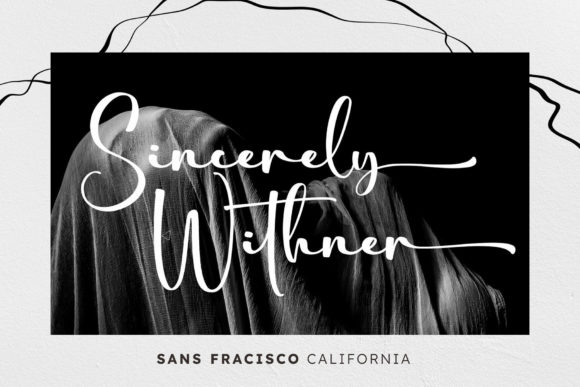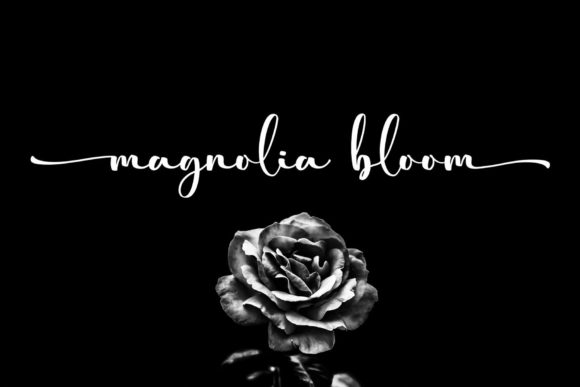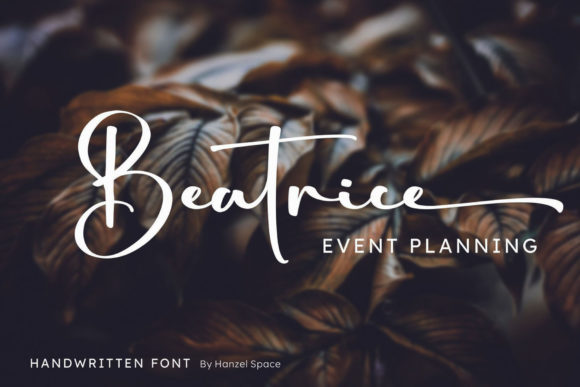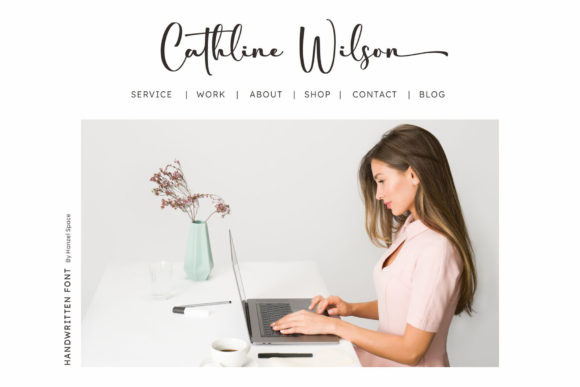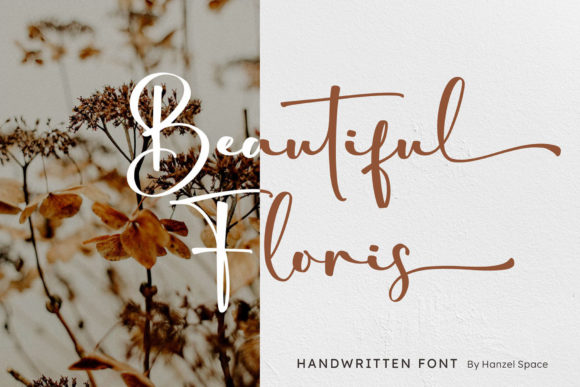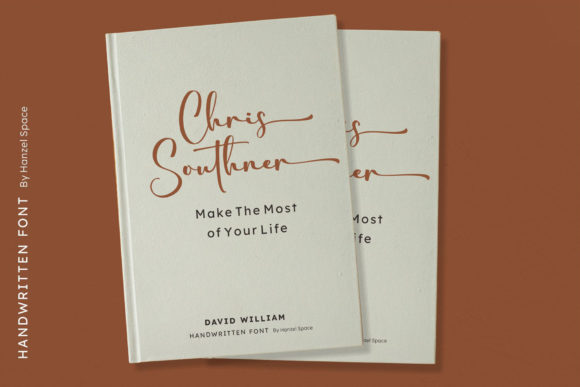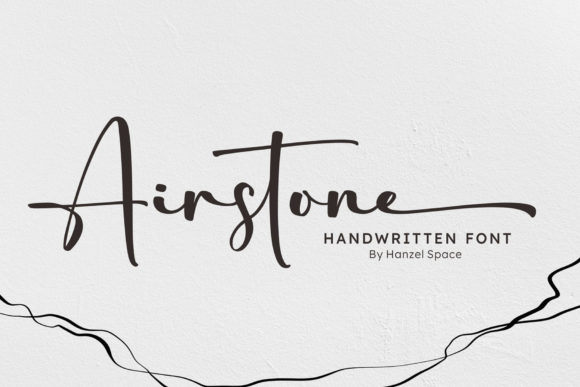
Airstone Font: Elevate Your Designs with Elegance and Sophistication
Are you on the hunt for a font that exudes style, sophistication, and elegance? Look no further than Airstone, a stunning script font that’s sure to take your designs to the next level. With its ravishing style and versatility, Airstone is the perfect choice for designers and crafters looking to create breathtaking wedding invitations, beautiful stationery art, eye-catching social media posts, and more.
The Beauty of Airstone Font
Airstone is a masterfully crafted script font that boasts a unique blend of classic elegance and modern flair. Its flowing lines, delicate curves, and intricate details make it a true showstopper. Whether you’re looking to create a romantic wedding invitation or a stylish social media post, Airstone’s got you covered. Its ravishing style is sure to captivate your audience and leave a lasting impression.
What Makes Airstone Font So Special?
So, what sets Airstone apart from other fonts? Here are just a few reasons why Airstone is a cut above the rest:
- Unique and Elegant Design: Airstone’s distinctive design makes it perfect for creating high-end designs that demand attention.
- Versatility: From wedding invitations to social media posts, Airstone is the perfect choice for a wide range of design projects.
- Easy to Read: Despite its ornate details, Airstone is surprisingly easy to read, making it perfect for body text and headlines.
- Scalable: Airstone looks stunning at any size, from large headlines to smaller body text.
Creative Uses for Airstone Font
Airstone’s versatility knows no bounds, making it perfect for a wide range of design projects. Here are just a few ideas to get you started:
- Wedding Invitations: Create stunning wedding invitations that set the tone for a beautiful and elegant wedding.
- Stationery Art: Add a touch of elegance to your stationery with Airstone’s beautiful script font.
- Social Media Posts: Elevate your social media game with Airstone’s stylish and eye-catching font.
- Logos and Branding: Use Airstone to create a unique and memorable logo that sets your brand apart.
- Signage and Displays: Make a statement with Airstone’s bold and elegant font on signage and displays.
Tips for Using Airstone Font
To get the most out of Airstone, here are a few tips to keep in mind:
- Pair with a Simple Font: Pair Airstone with a simple font to create a striking contrast that adds visual interest.
- Use for Headlines and Titles: Airstone is perfect for headlines and titles, where its elegant design can shine.
- Experiment with Colors: Try pairing Airstone with different colors to create a unique and eye-catching design.
In conclusion, Airstone is a truly exceptional script font that’s sure to elevate your designs to new heights. With its unique blend of elegance, sophistication, and versatility, Airstone is the perfect choice for designers and crafters looking to create stunning wedding invitations, beautiful stationery art, eye-catching social media posts, and more. So why wait? Fall for Airstone’s ravishing style and take your designs to the next level!